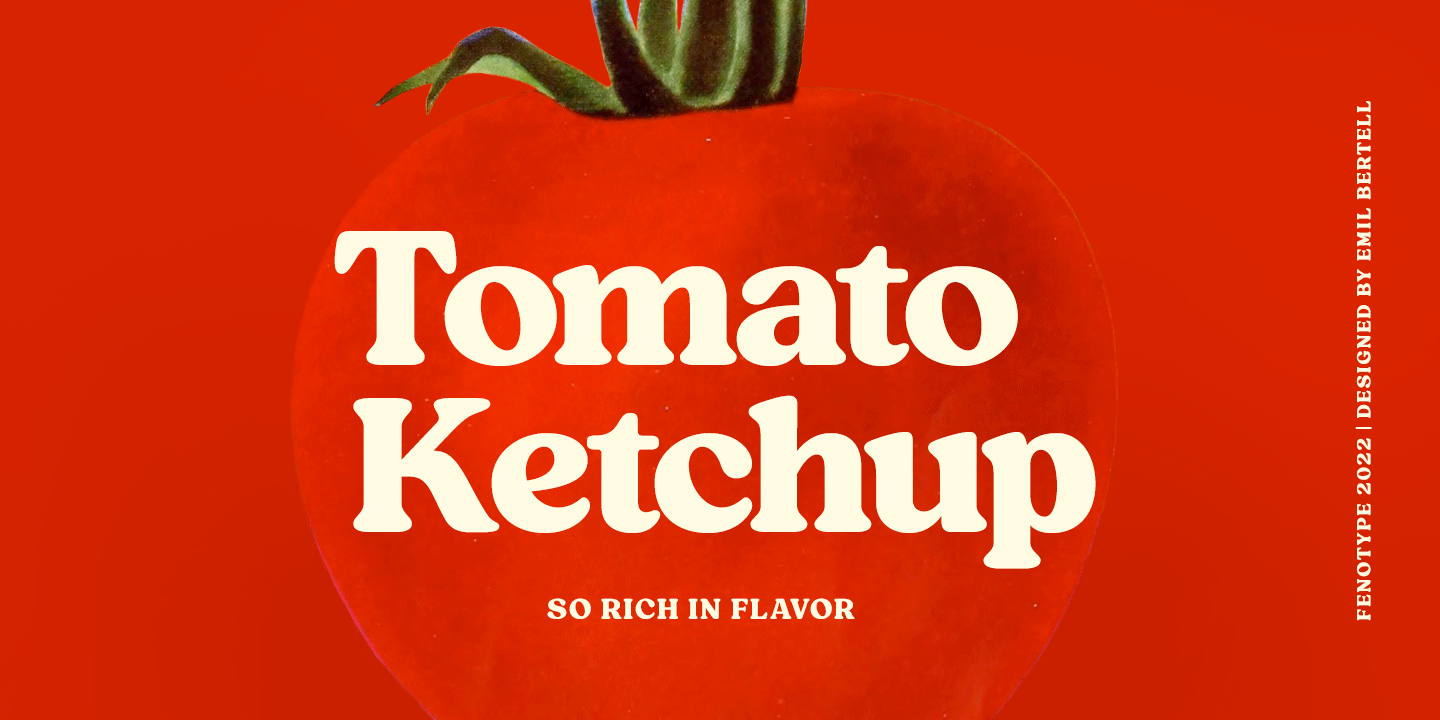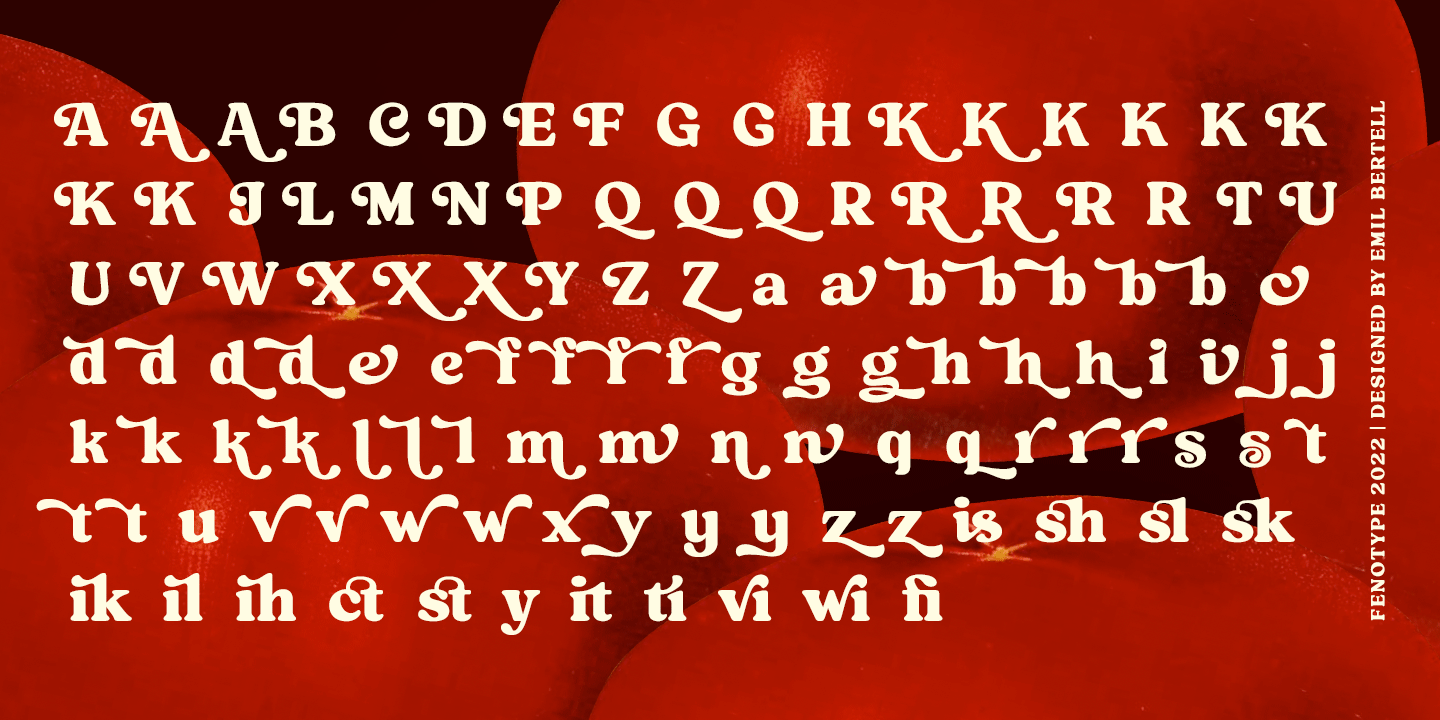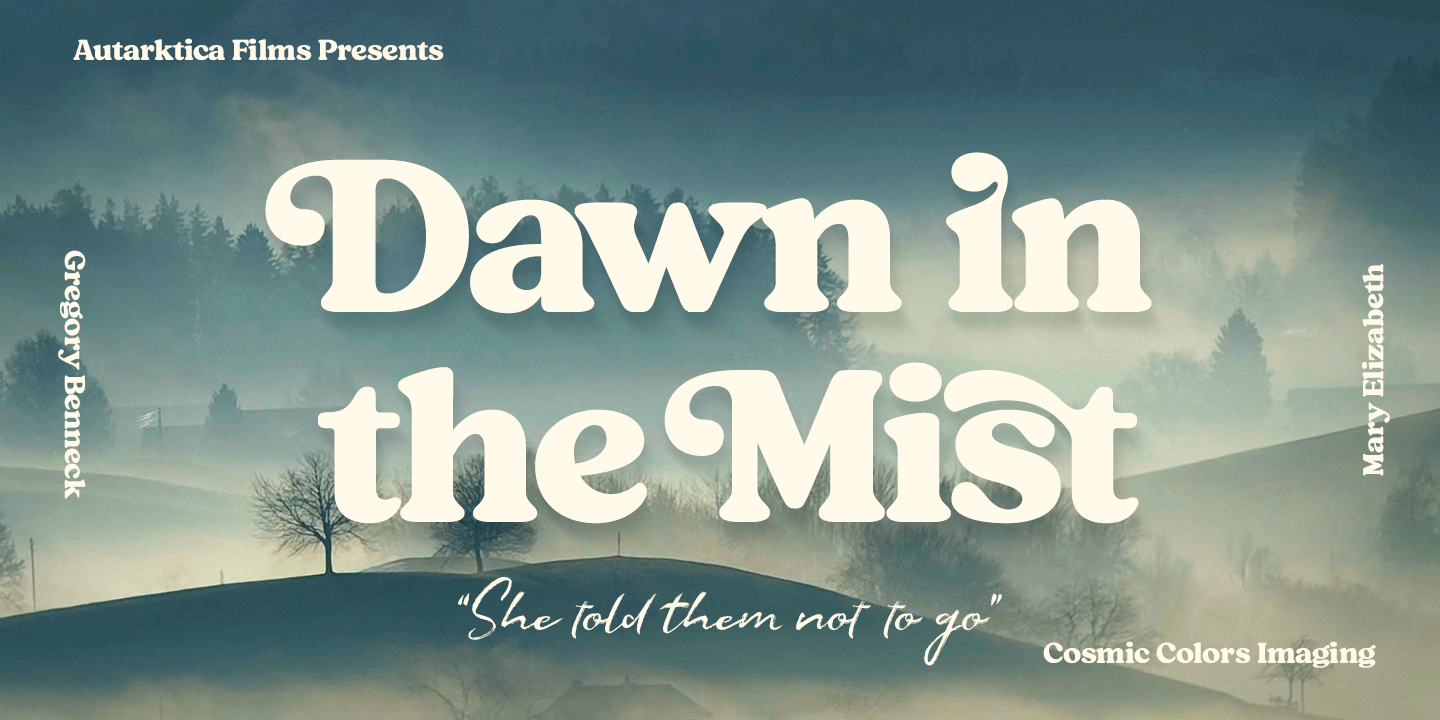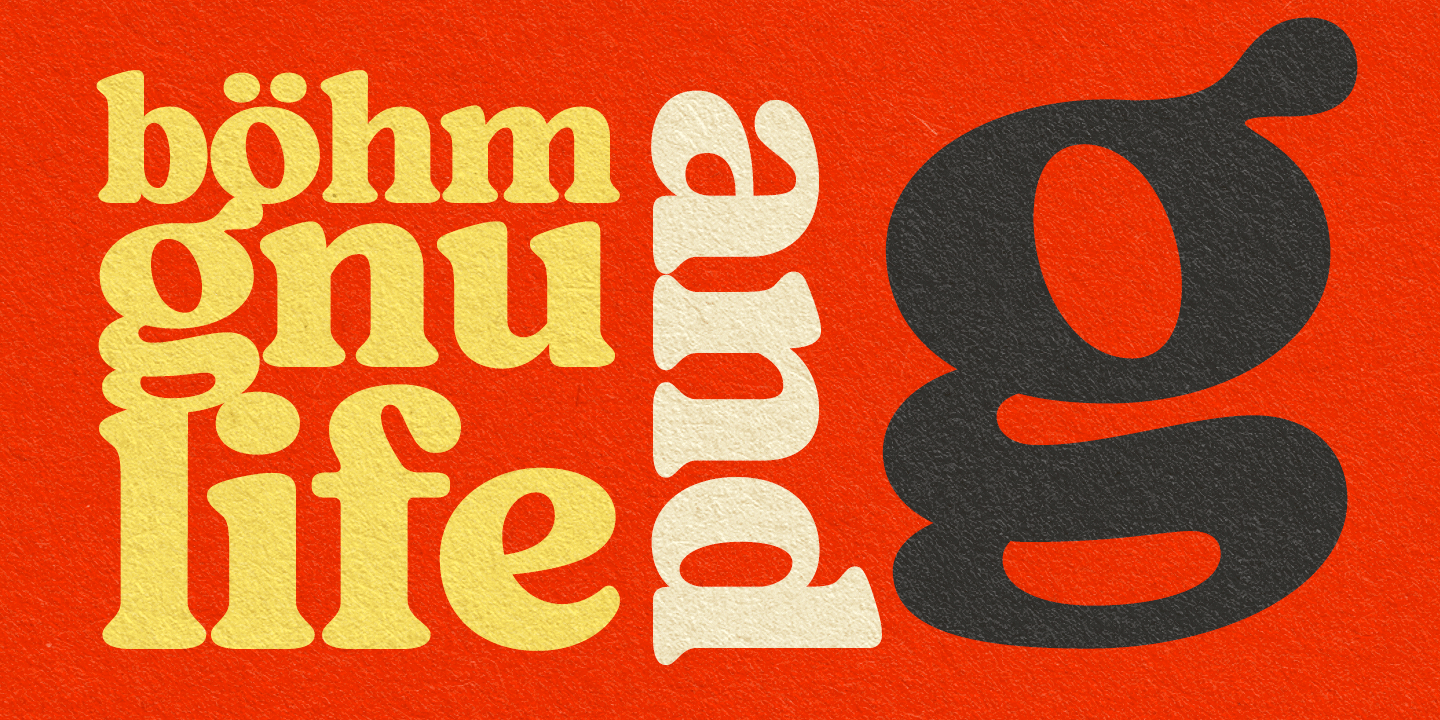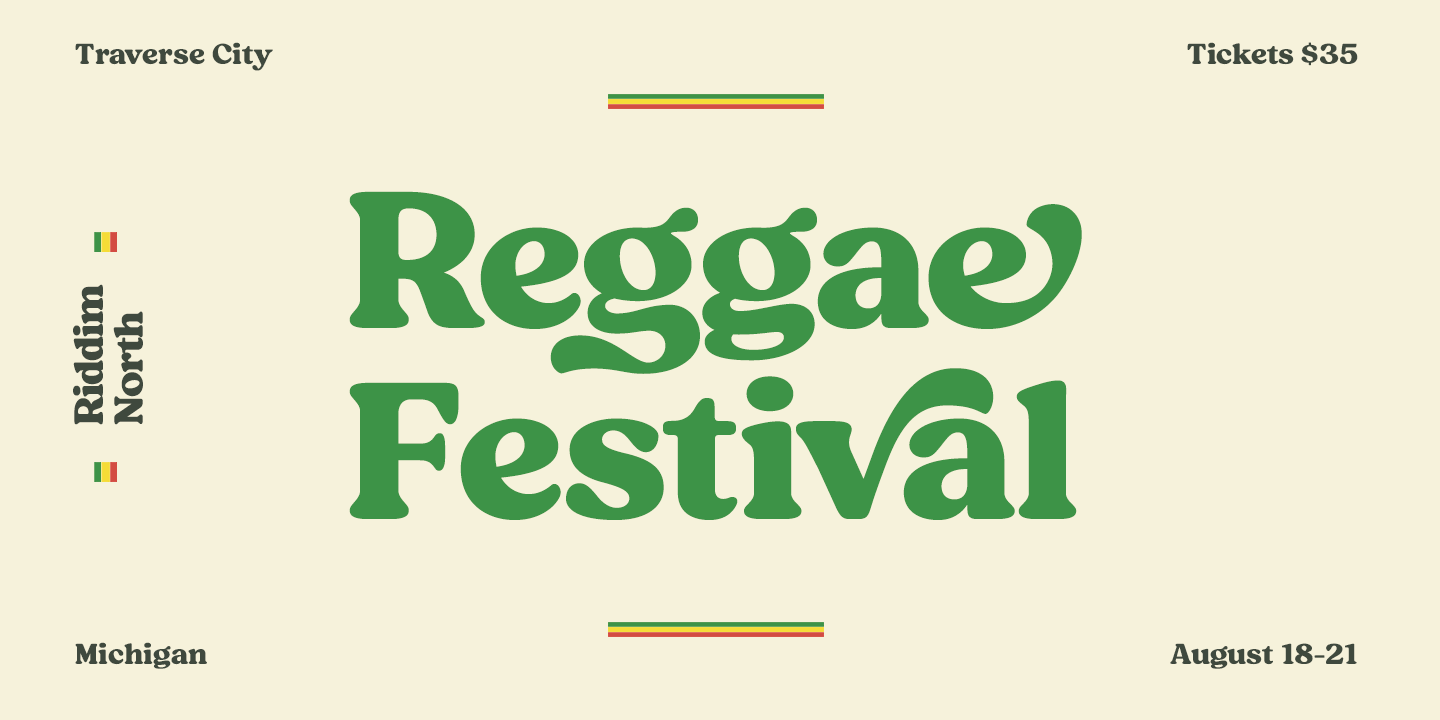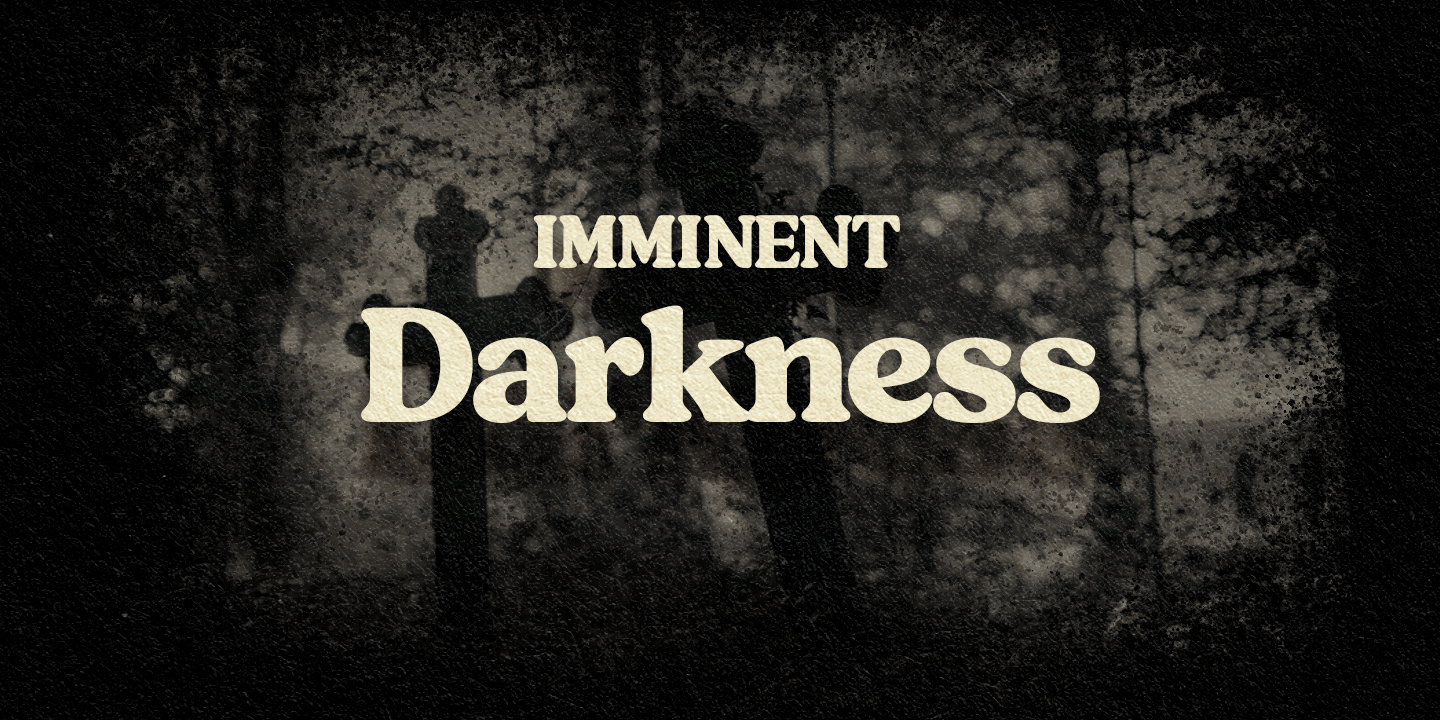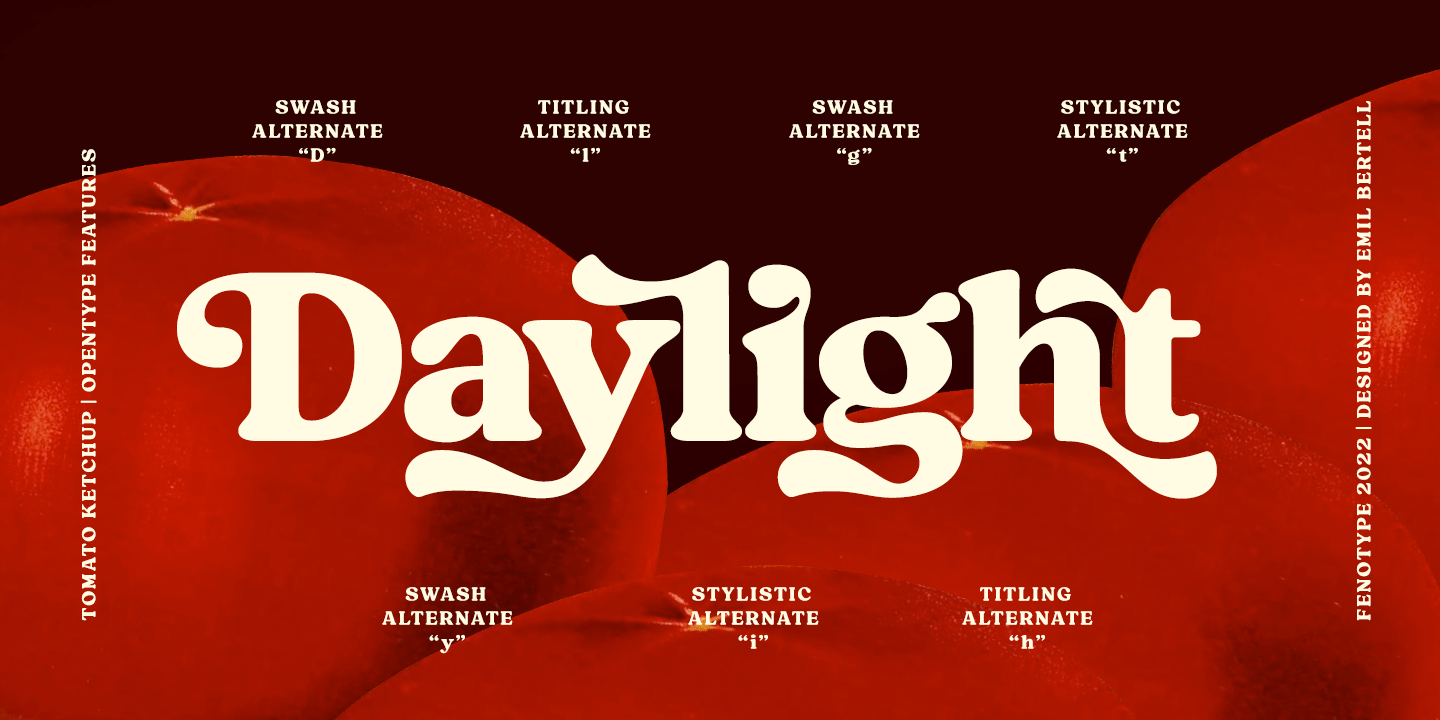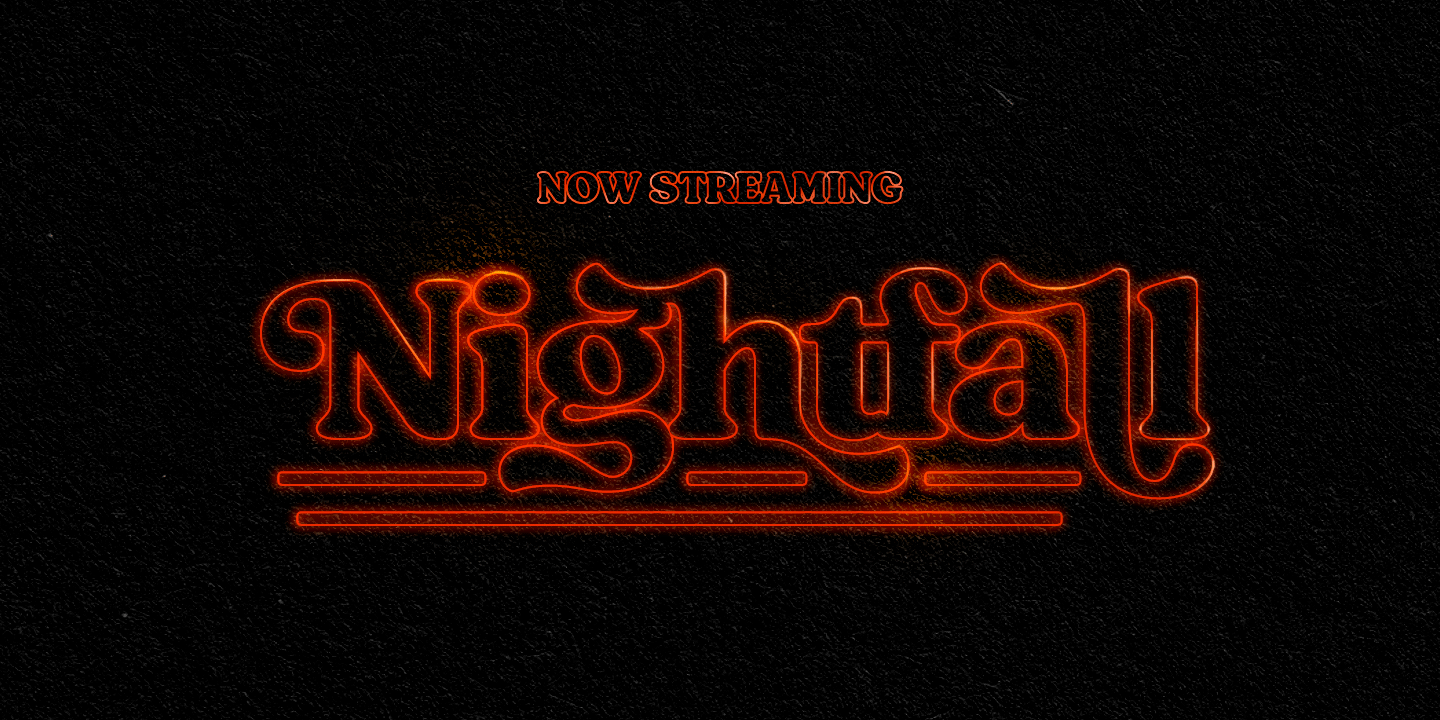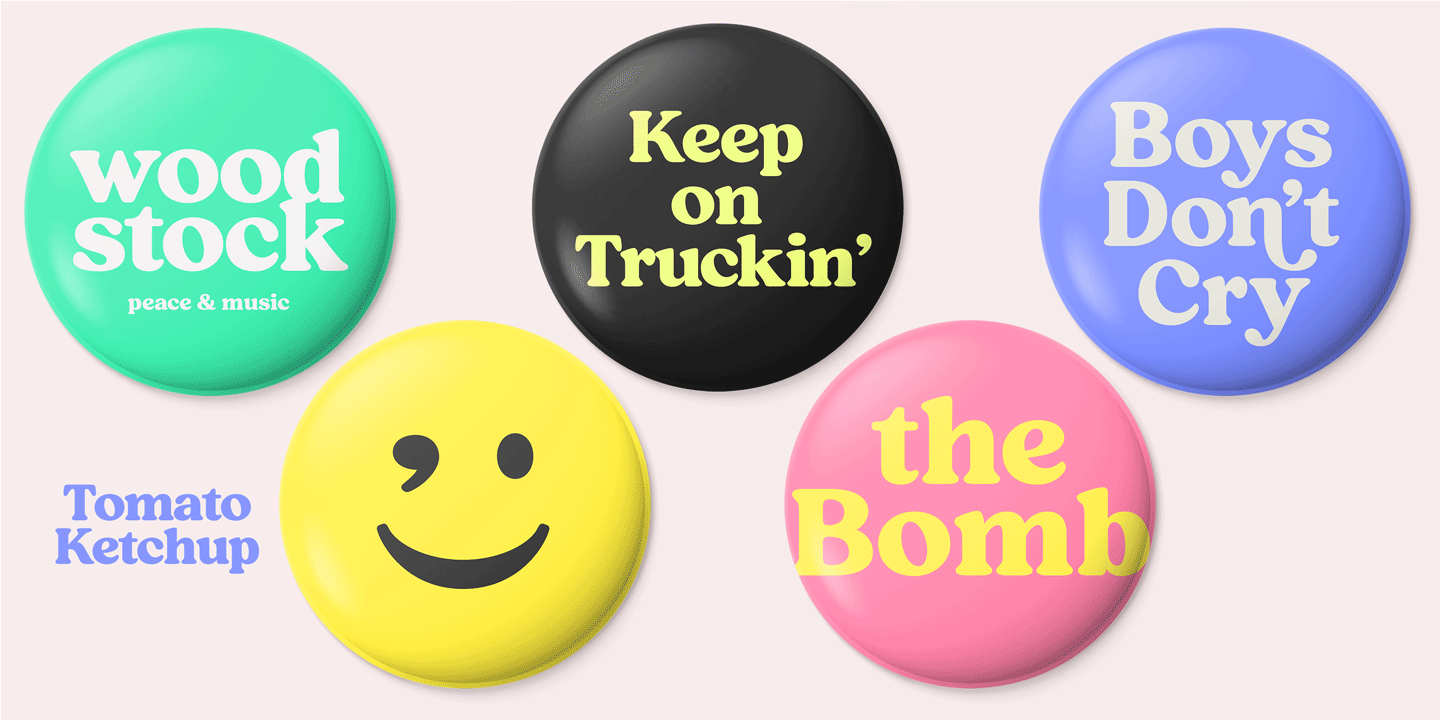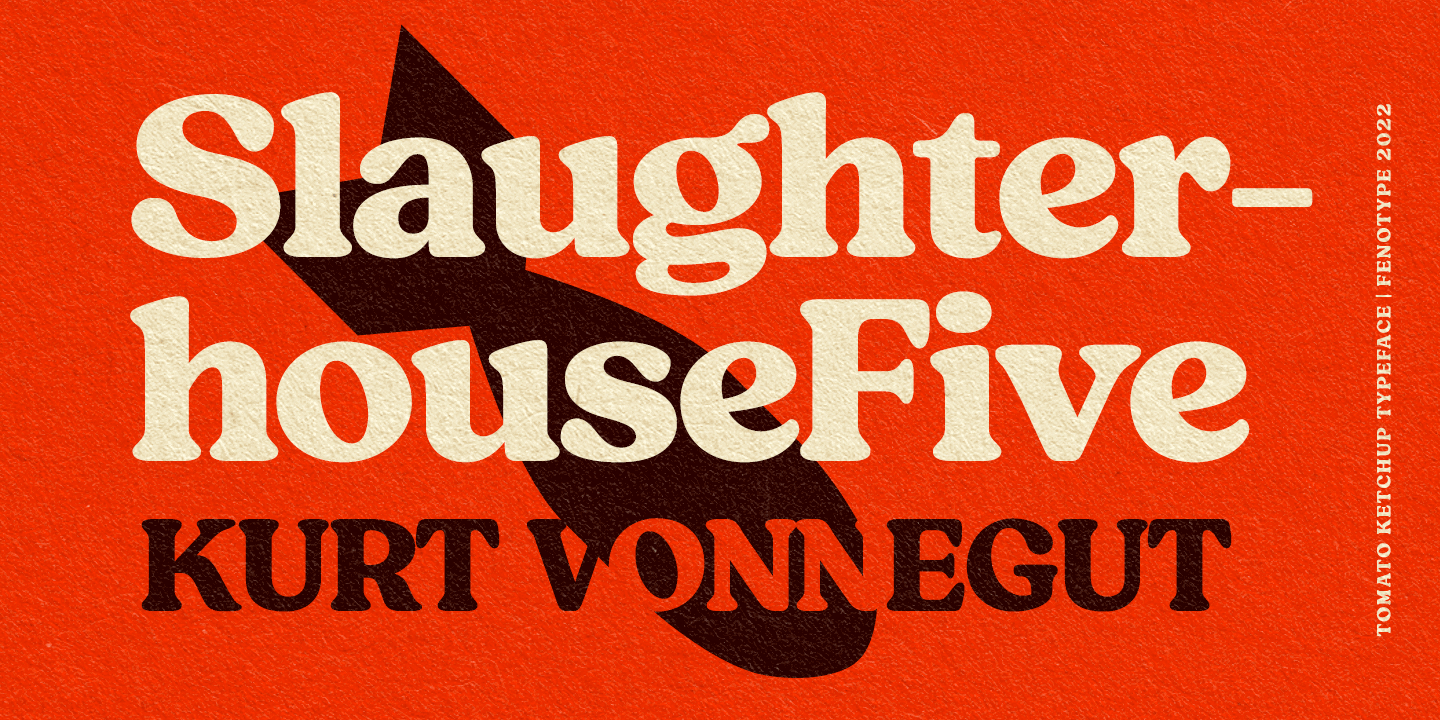
Tomato Ketchup (1 font)
Tomato Ketchup is a great typeface for contemporary graphic design with that certain feeling of familiarity. It works well on logos, packaging, restaurant graphics, or any display use, as well as in headlines or shorter texts. Try Tomato ketchup with reduced tracking for tighter word images, or if you want to use it in really small sizes add some tracking.